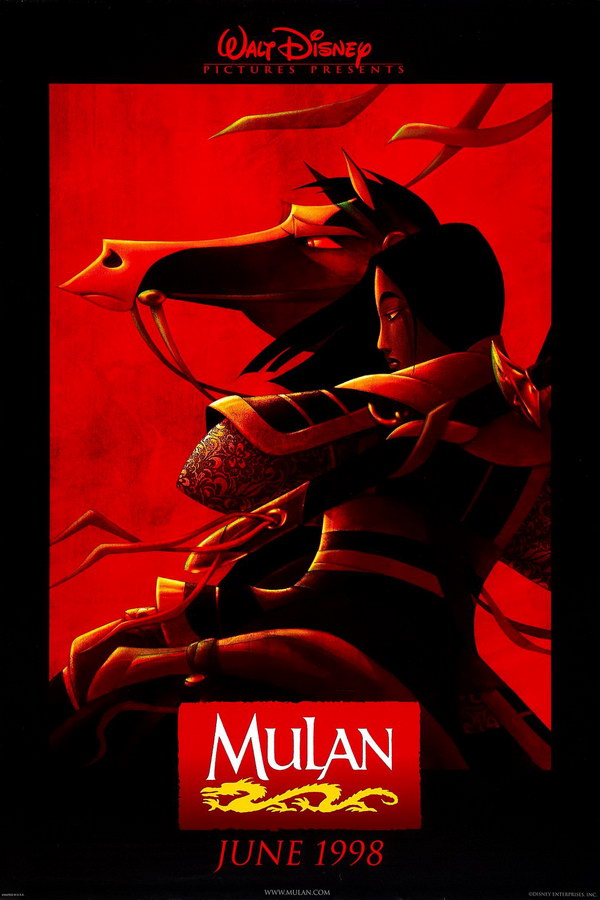
Mulan Font
AdventureMulan is a 1998 animated Disney movie based on a Chinese legend about a young girl who disguises herself as a man to take her father's place in the army and bring honor to her family.